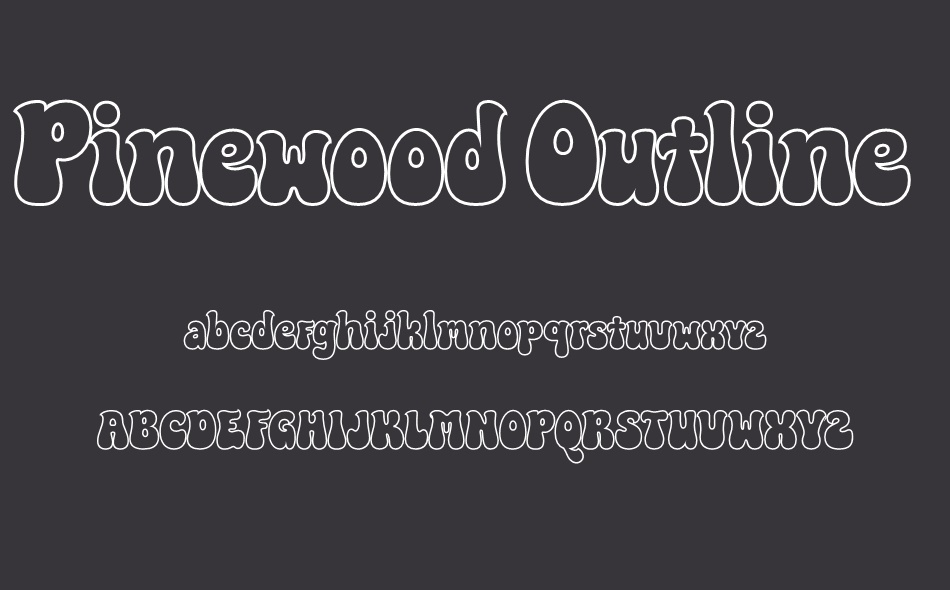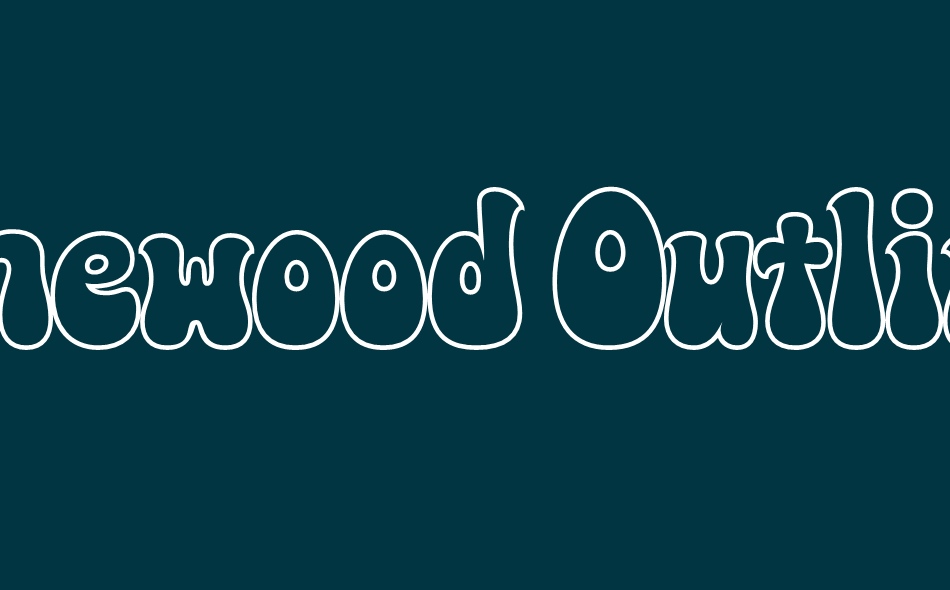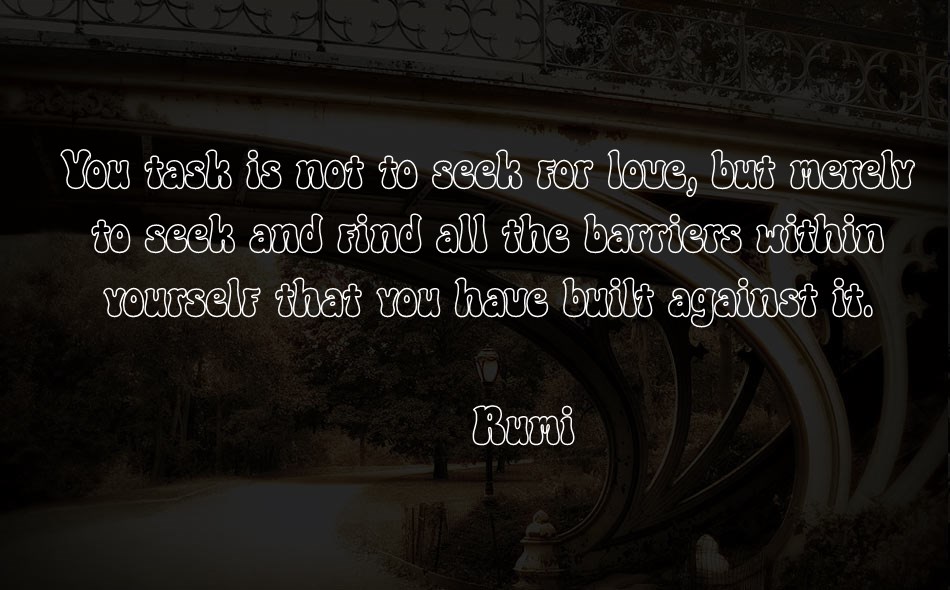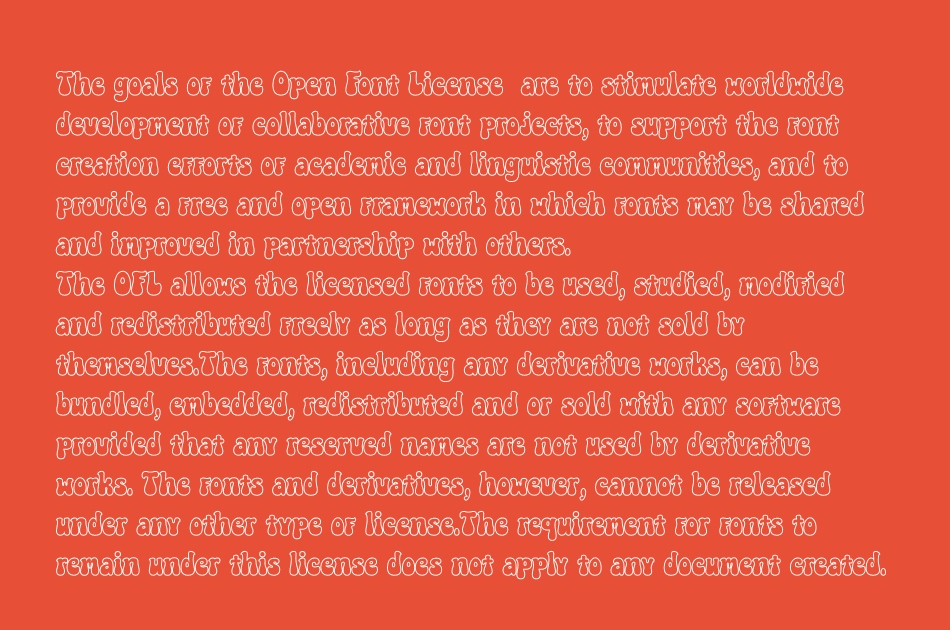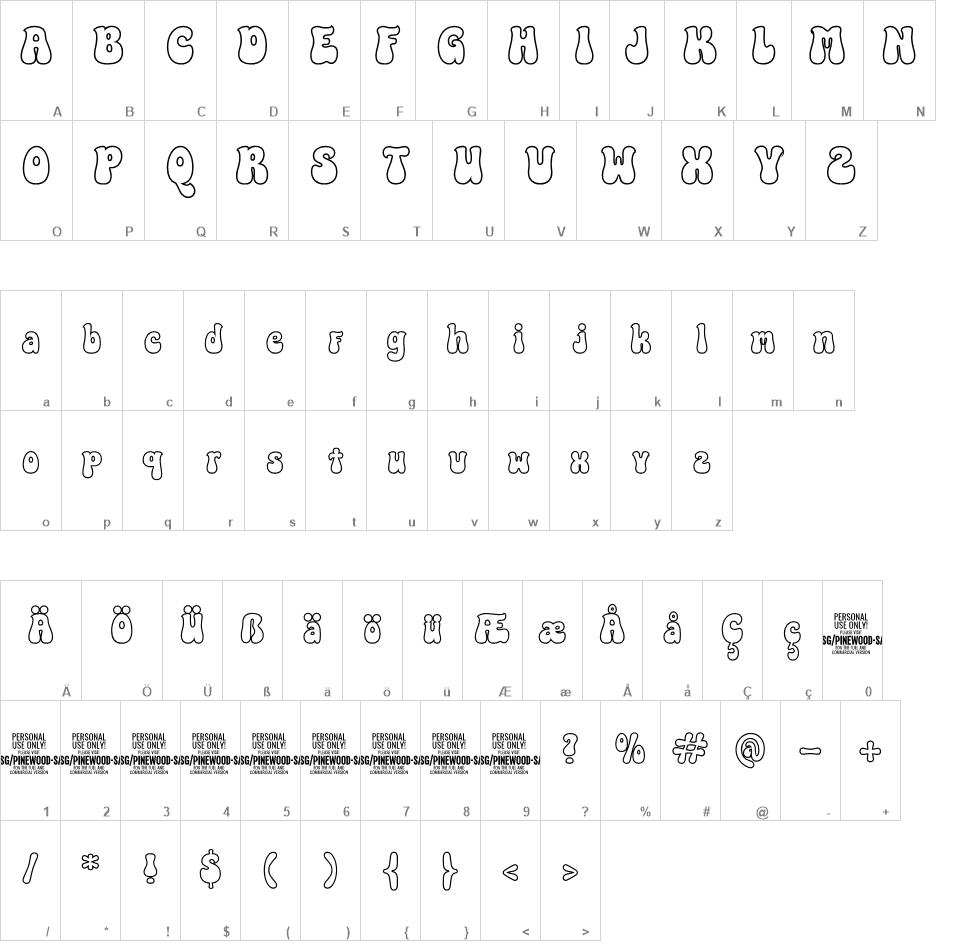
Pinewood Outline font
Pinewood Outline is a funky, bold, and playful typeface that encapsulates the retro, hippie spirit with a touch of graffiti and childish charm.
Pinewood Sans is a funky, bold, and playful typeface that encapsulates the retro, hippie spirit with a touch of graffiti and childish charm. This unique font brings a sense of fun and whimsy to your designs, making them perfect for parties, invitations, and other creative projects where a lighthearted vibe is desired.
The font comes in eight diverse styles, including Regular, Outline, Bold, and their italic versions, providing versatility and adaptability to various design needs.
The purpose behind creating Pinewood Sans was to fill a gap in the design world for a typeface that seamlessly blends nostalgia and modernity. By incorporating elements of vintage and contemporary styles, it allows designers to capture the essence of the past while still resonating with today's audience. Pinewood Sans is a testament to the importance of preserving the visual language of different eras, ensuring that their spirit can live on and continue to inspire new generations of designers and creatives.